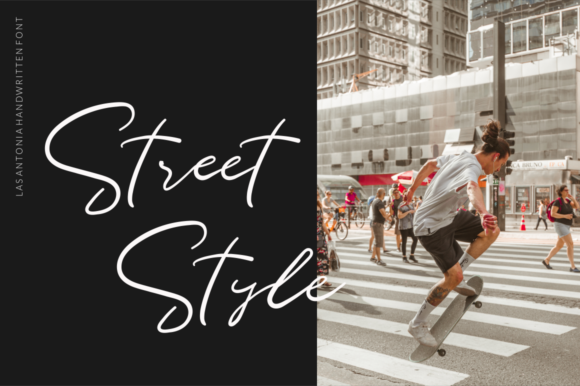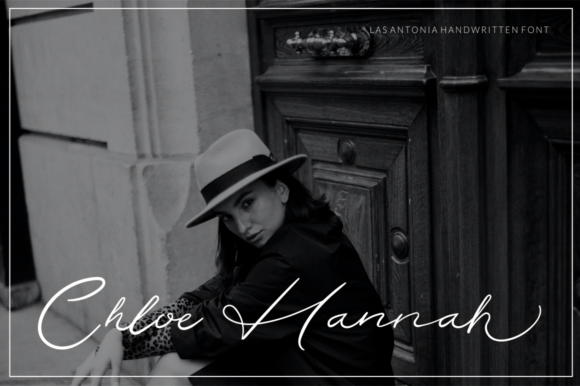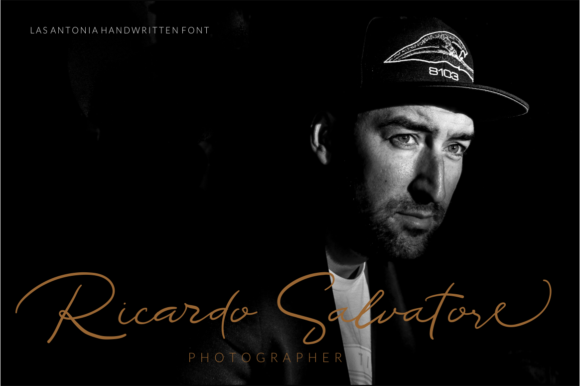
Introduction to Las Antonio Font
Las Antonio is an elegant and flowing handwritten font.
It is PUA encoded which means you can access all of the glyphs and swashes with ease It features a varying baseline, smooth lines, gorgeous glyphs and stunning alternates.